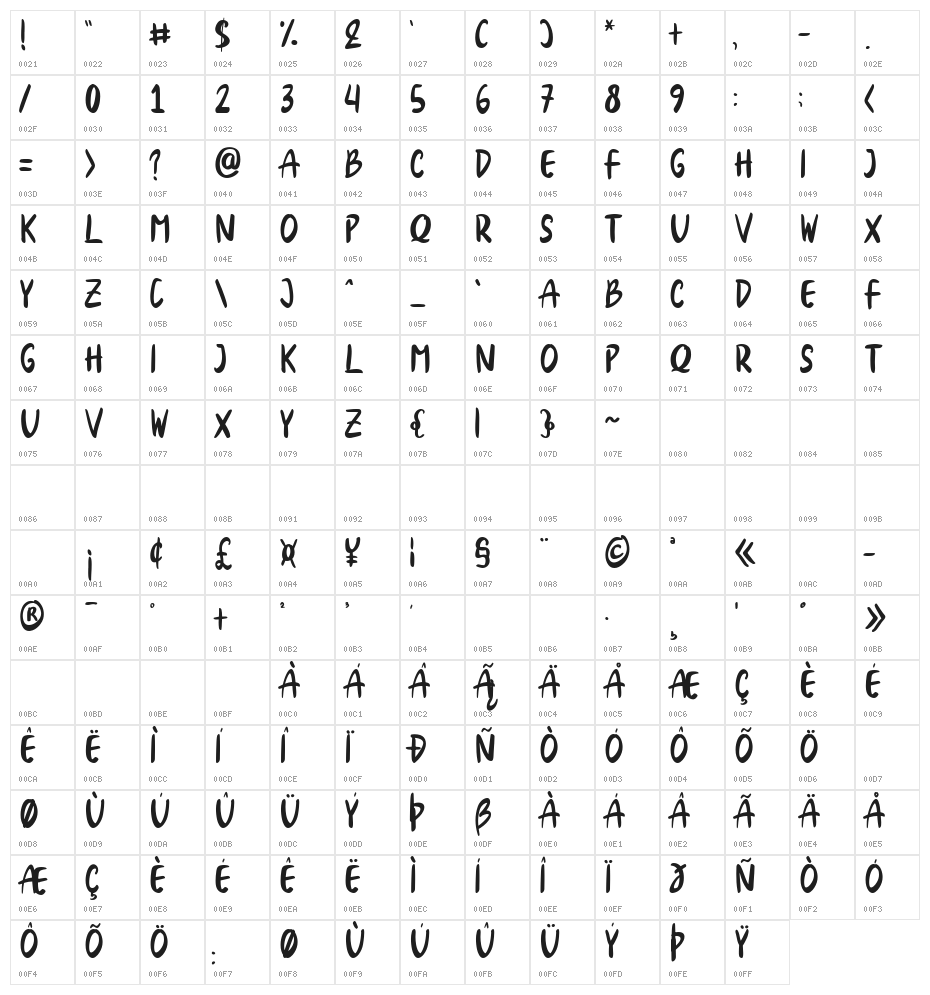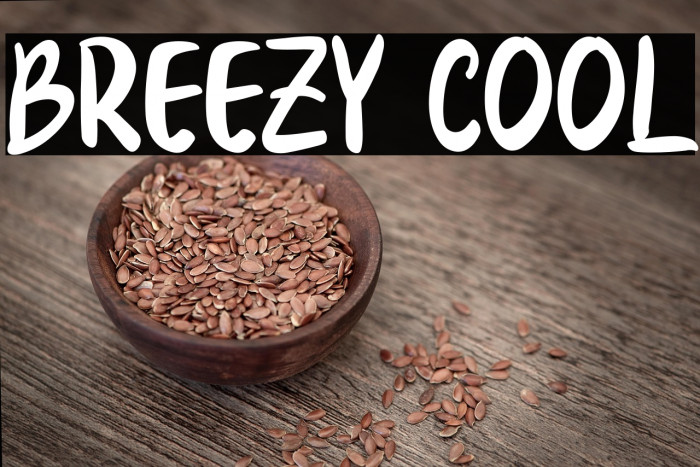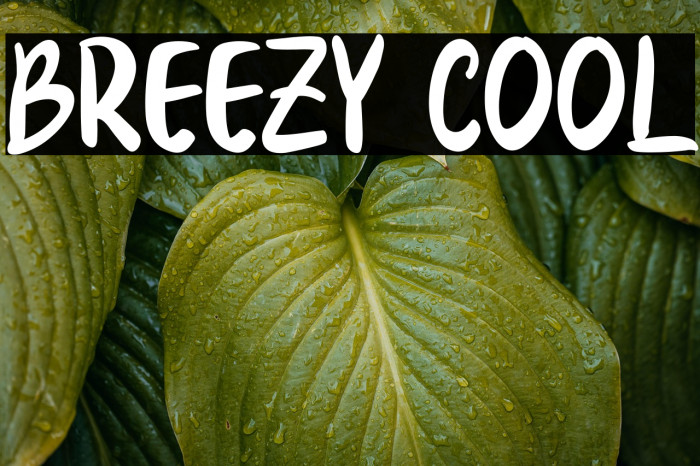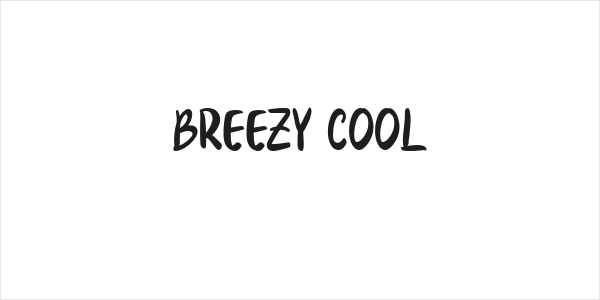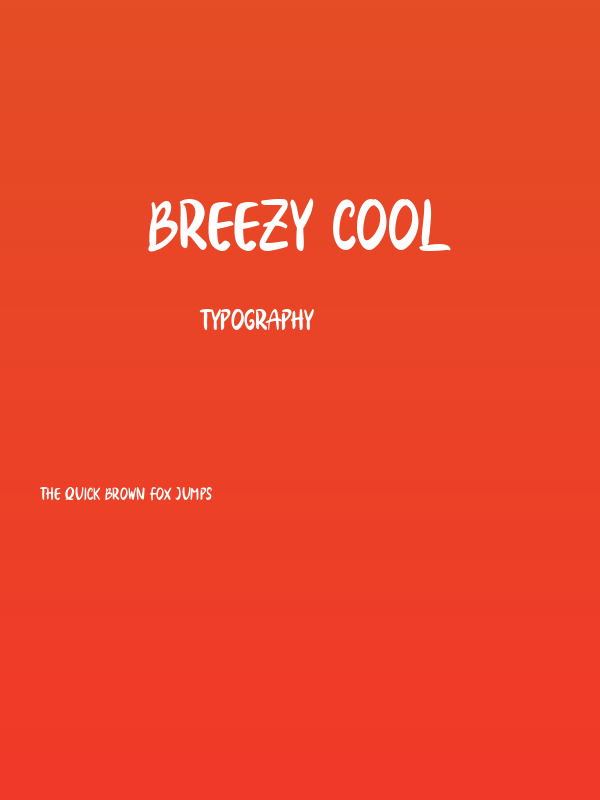
Breezy Cool Font
Breezy Cool Description
This font exudes a playful and energetic vibe, characterized by its bold and rounded strokes. The letters are slightly slanted, giving it a dynamic and informal appearance. The uppercase and lowercase letters maintain consistency in style, with smooth curves and a hand-drawn feel. The numbers and special characters follow the same aesthetic, ensuring a cohesive look across all elements. This font is perfect for projects that require a fun and approachable tone, making it ideal for casual branding, children's books, or creative posters.
BREEZY-COOL UPPERCASE
BREEZY-COOL LOWERCASE
BREEZY-COOL OTHER CHARS
| Proposed Projects | Ideal for casual branding, children's books, creative posters, and playful invitations. |